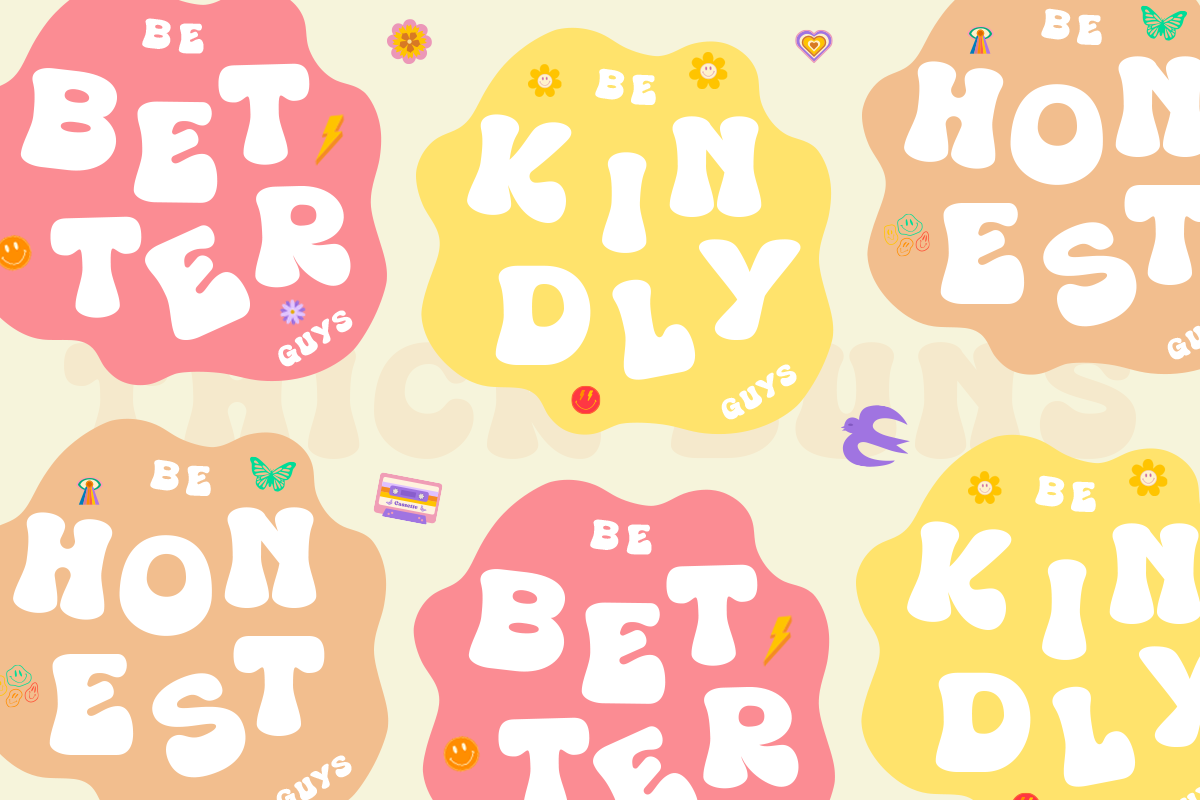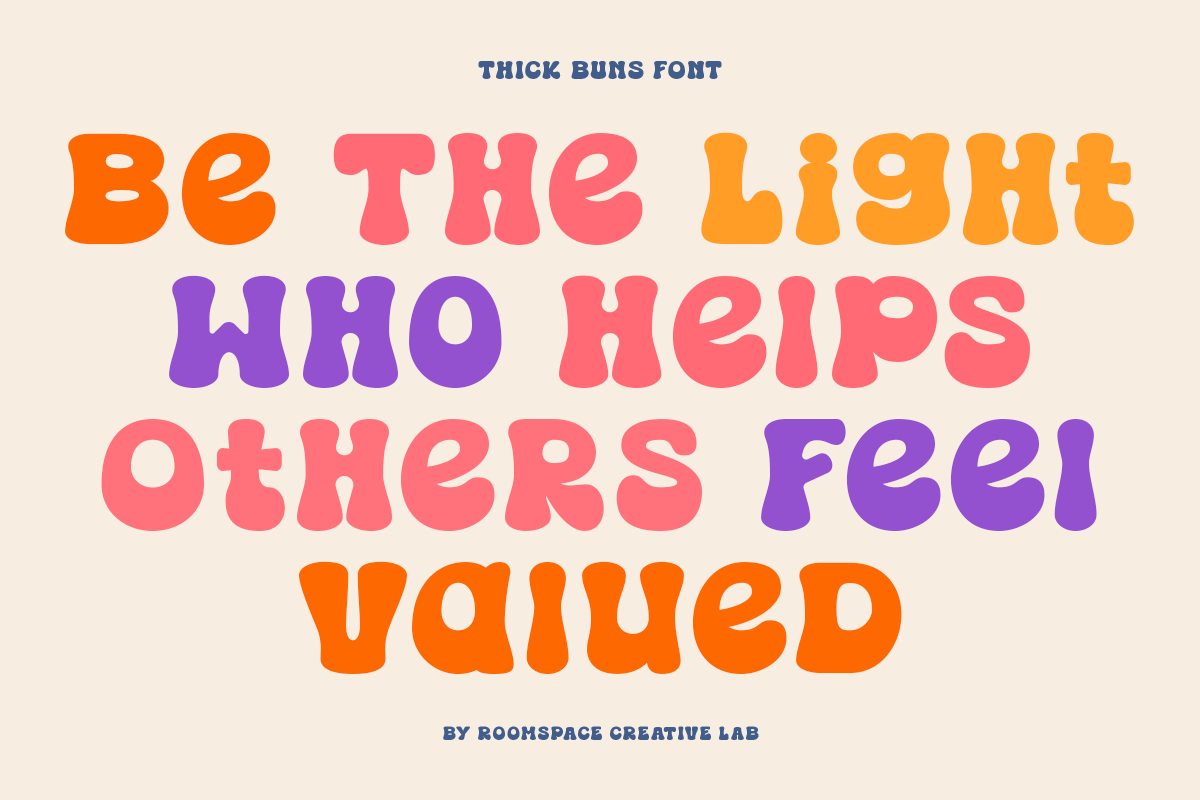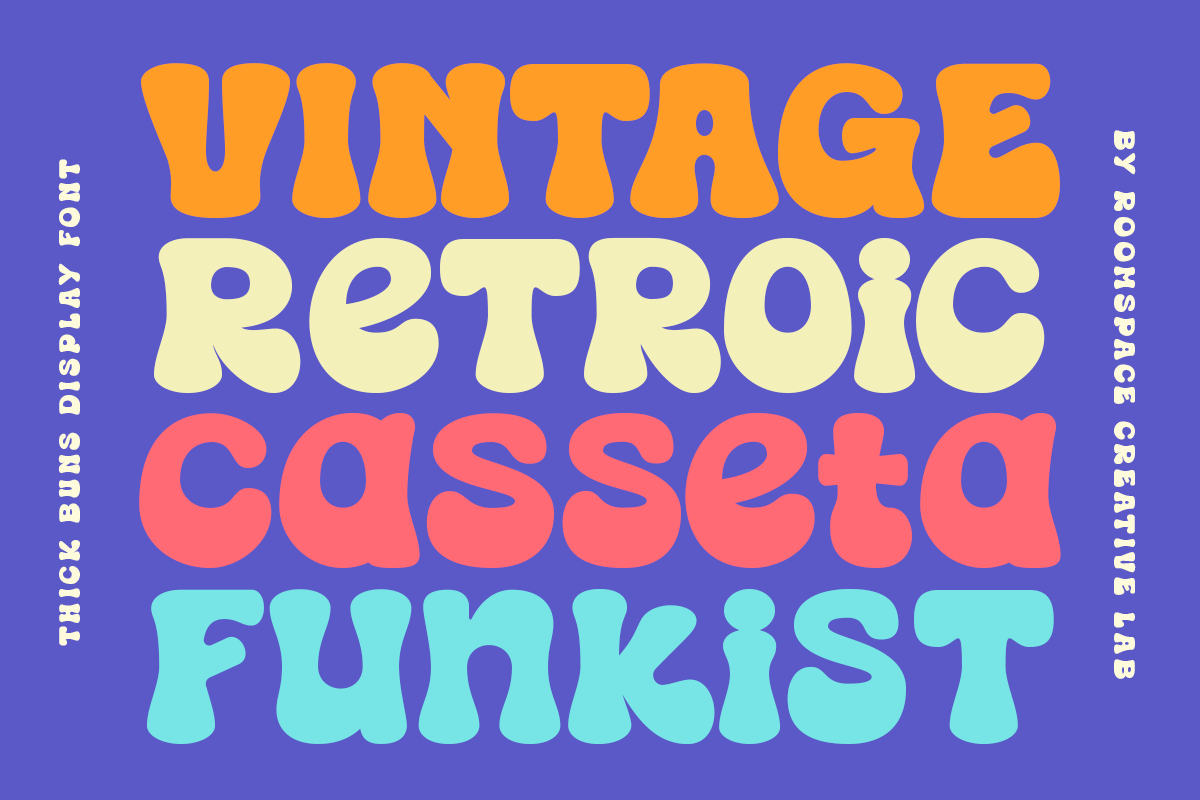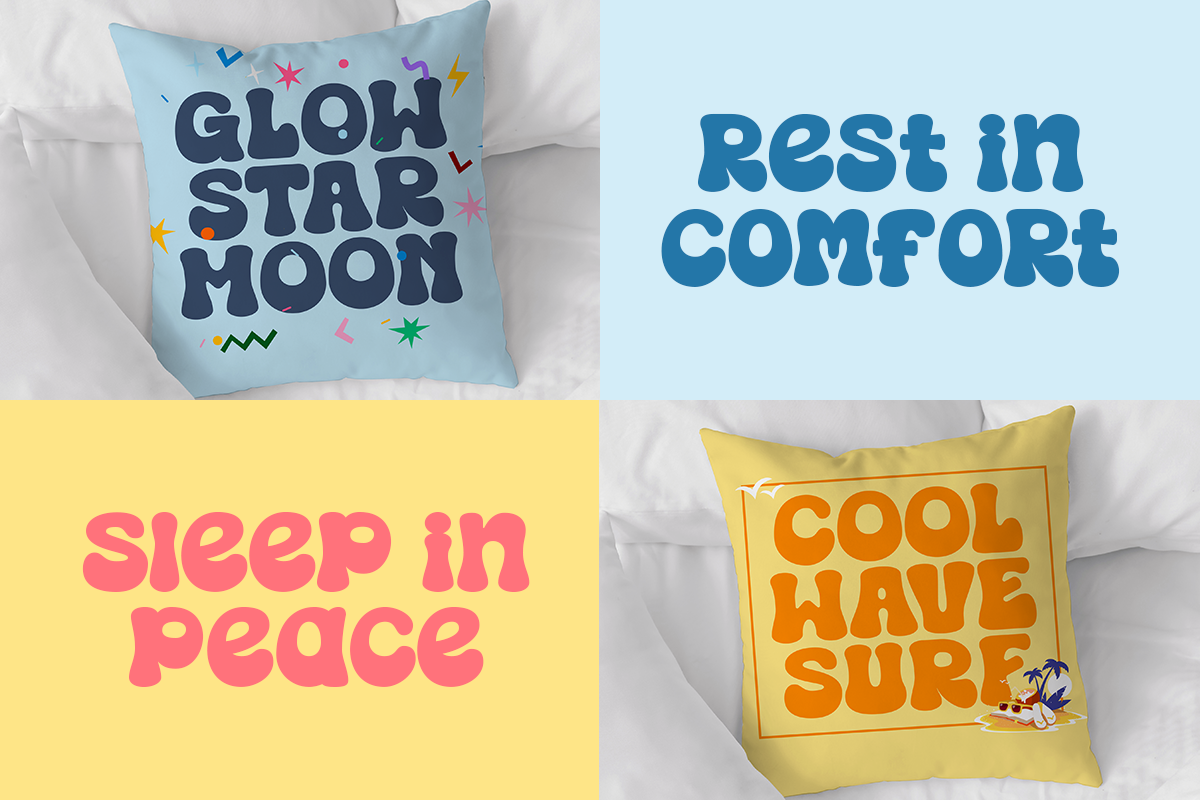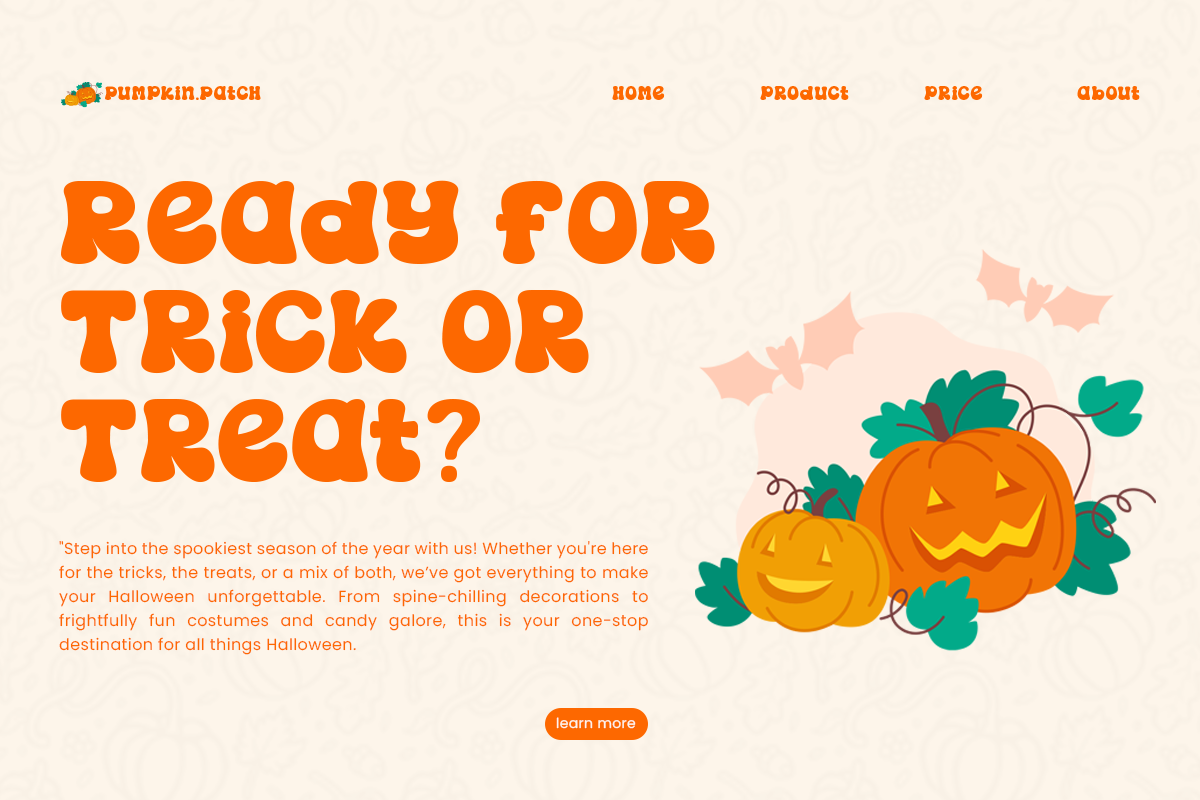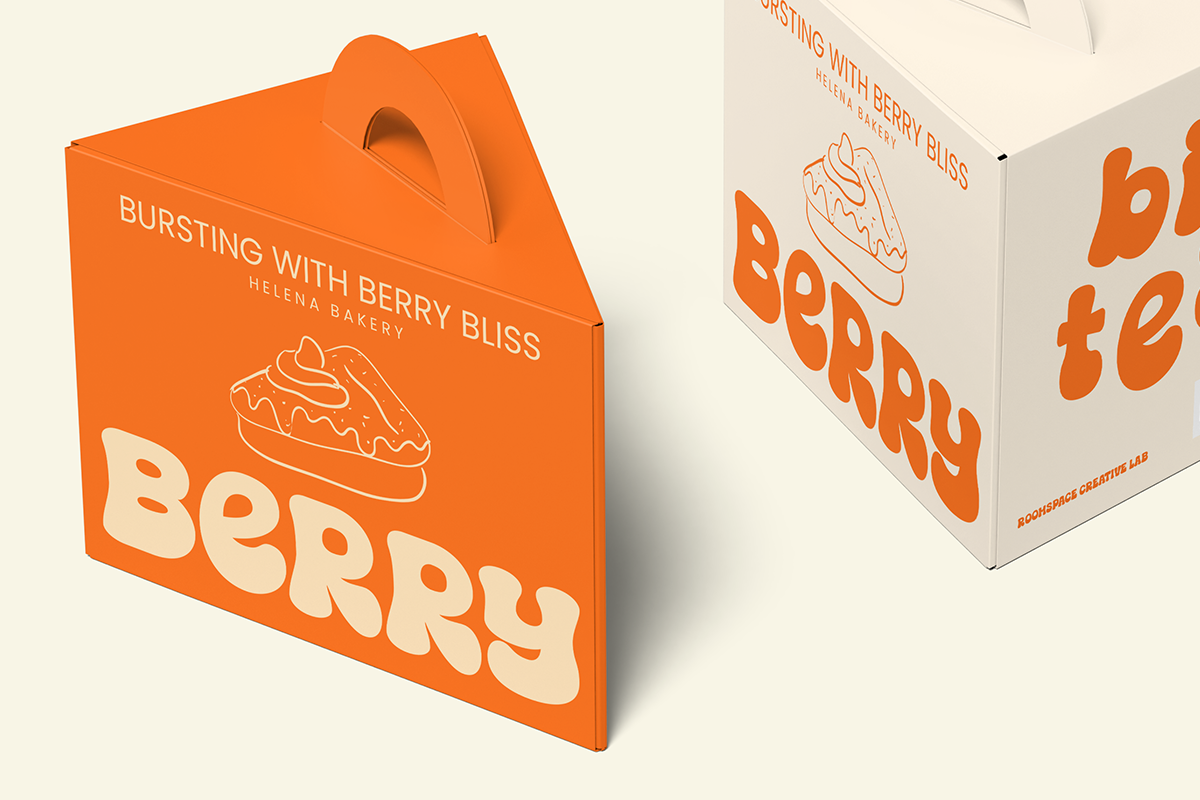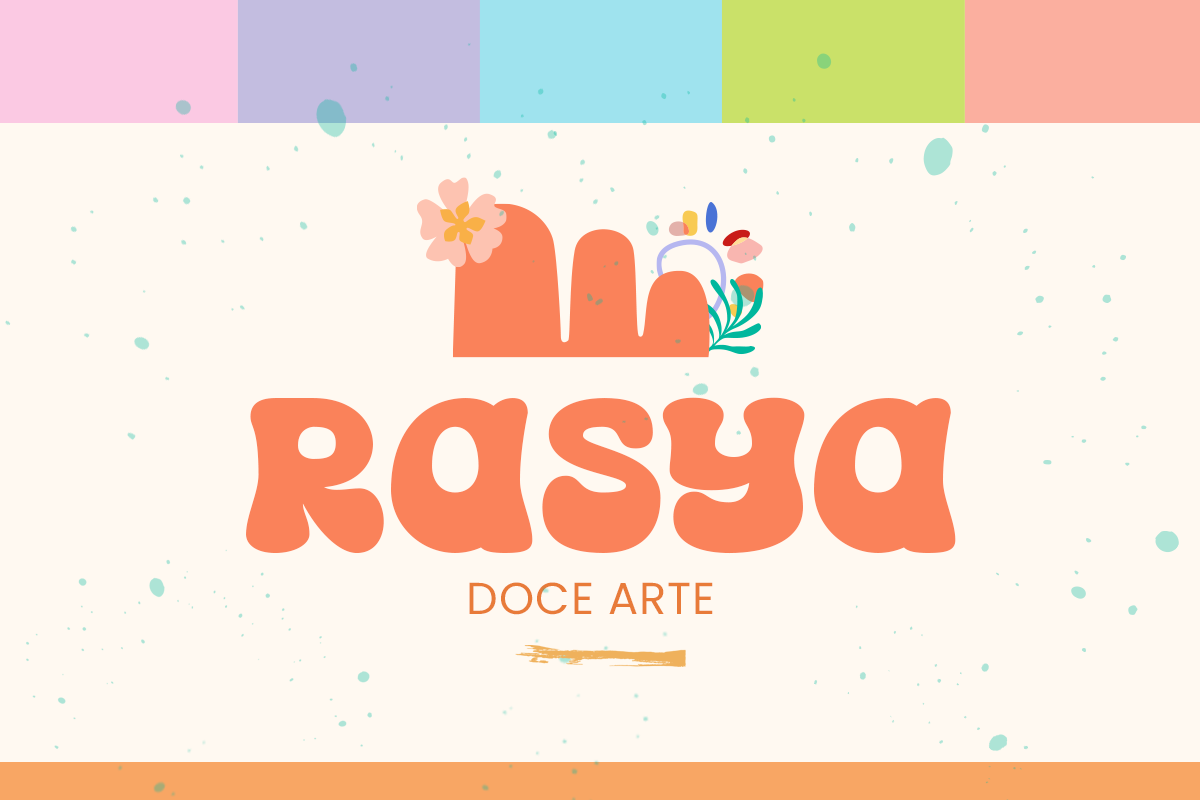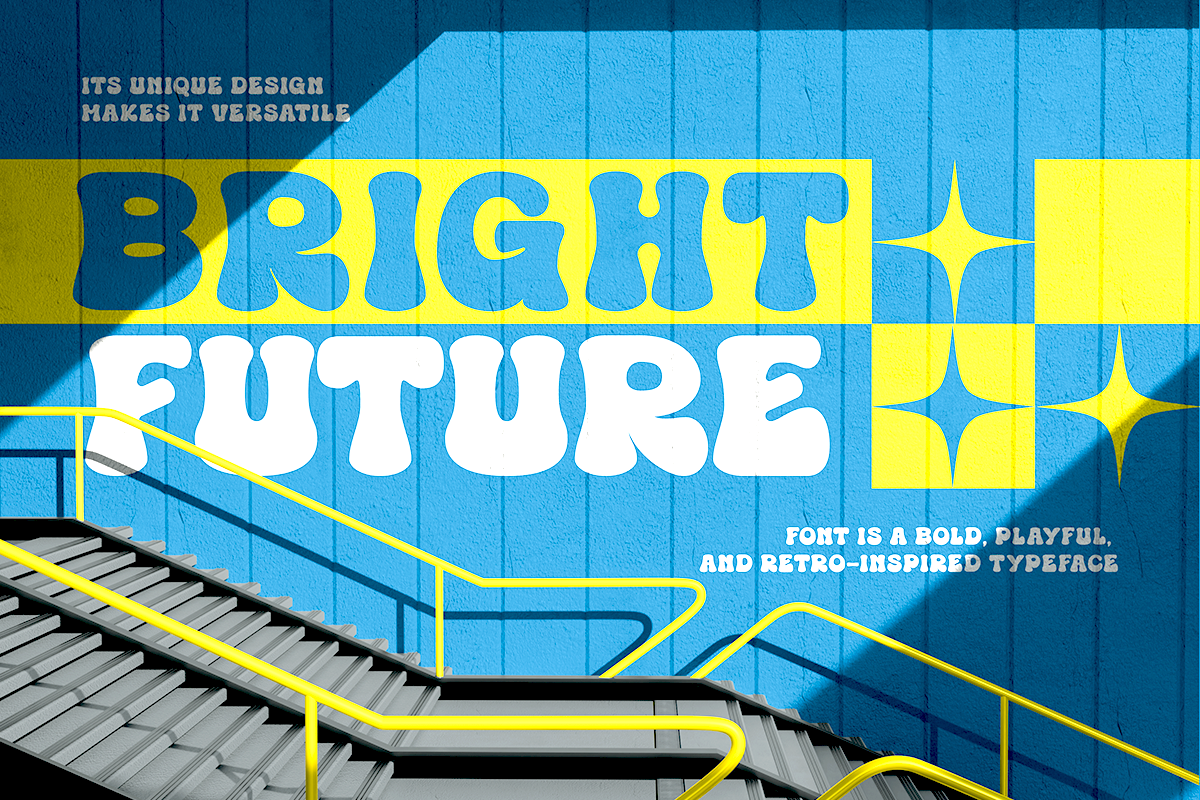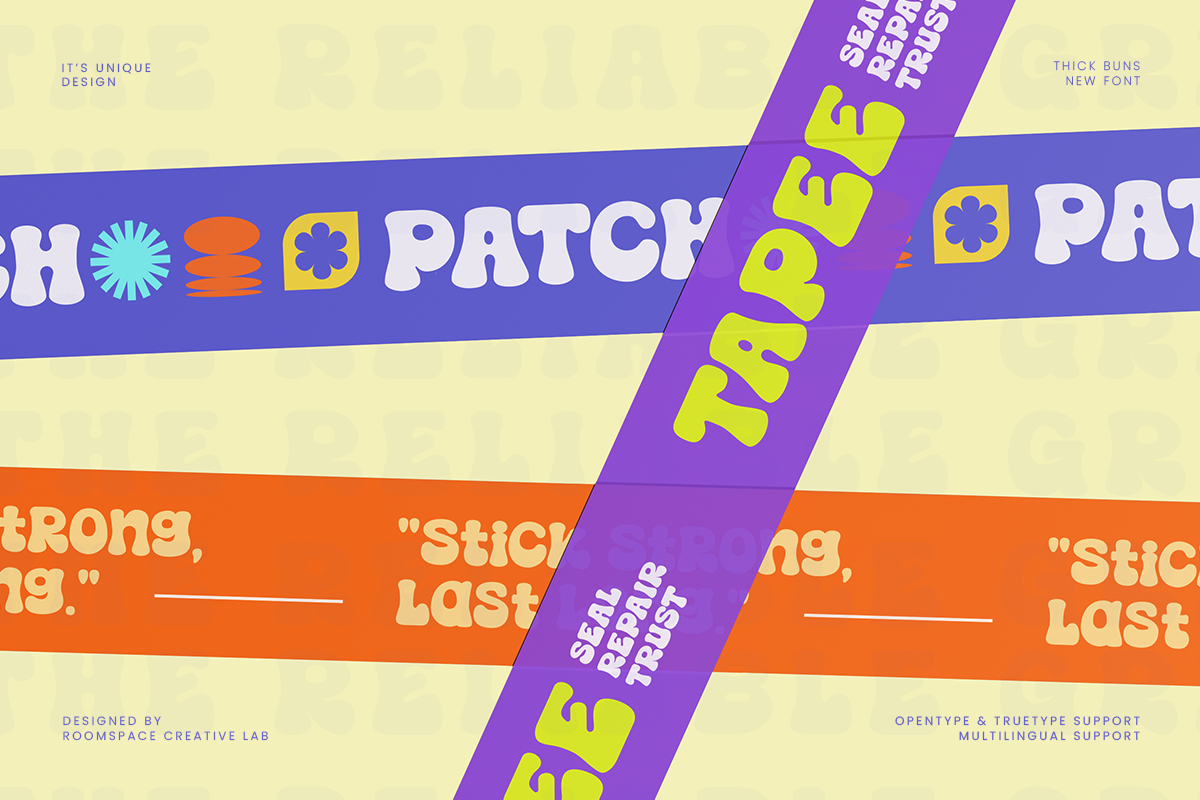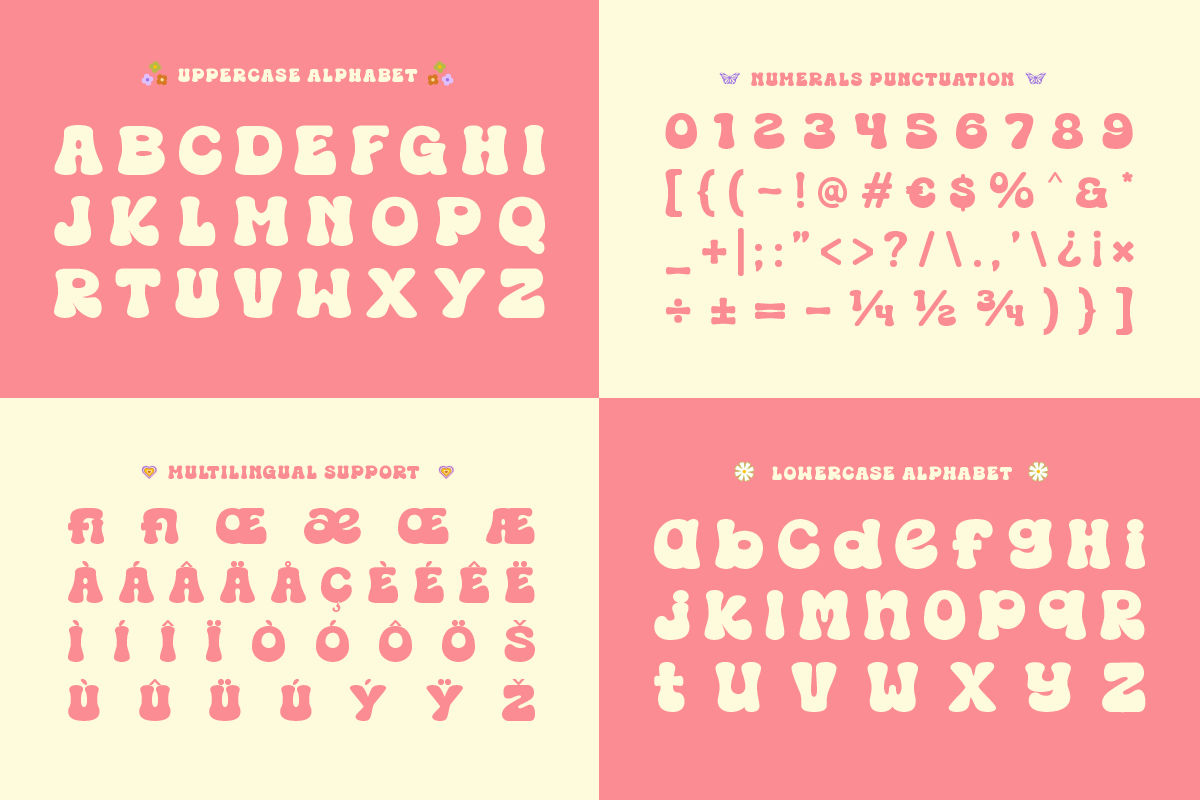
Thick Buns Decorative Display Font
Thick Buns is a retro-inspired display font with a bold, playful personality. Its rounded, chunky letterforms bring a nostalgic charm that’s perfect for designs needing a touch of groovy vibes. From vintage posters to fun branding projects, this font adds a unique twist to your creative work.
With its smooth curves and striking style, Thick Buns seamlessly blends retro aesthetics with modern versatility. Whether you're working on party invitations, standout logos, or eye-catching social media graphics, it’s a font that grabs attention and brings your ideas to life.
This font is designed to be as flexible as it is fun. It works beautifully across both print and digital platforms, helping you set the tone with its lively and energetic vibe.